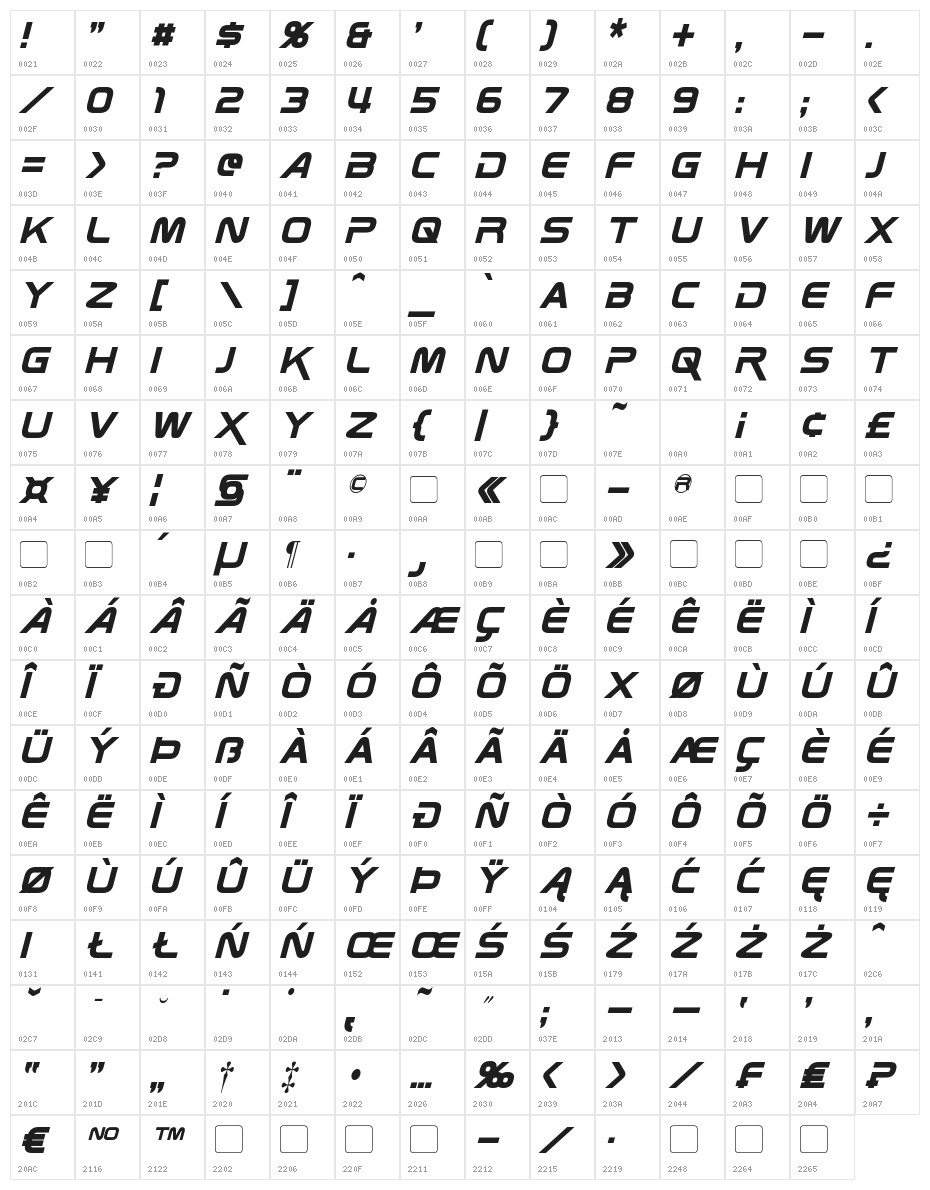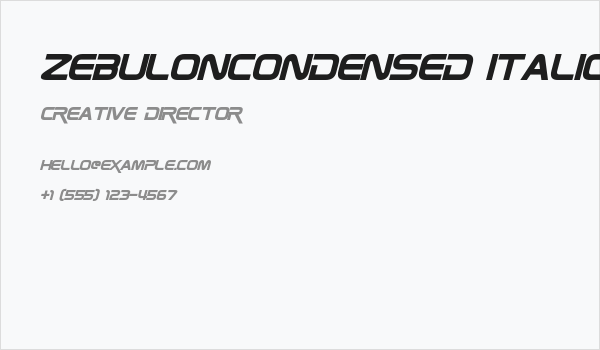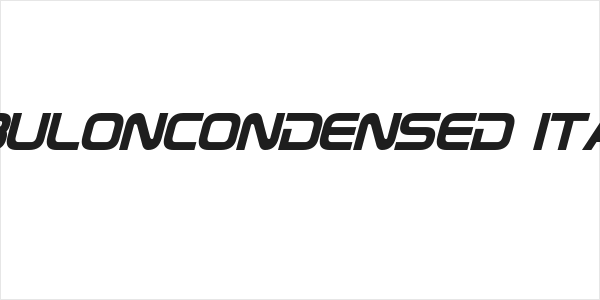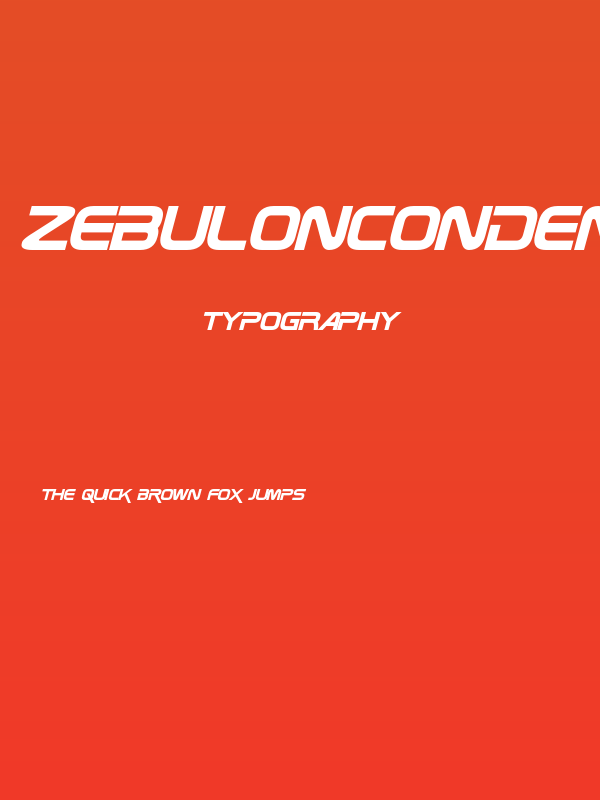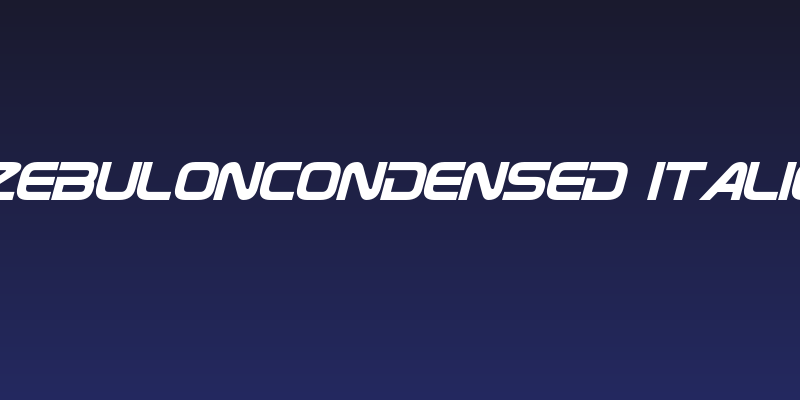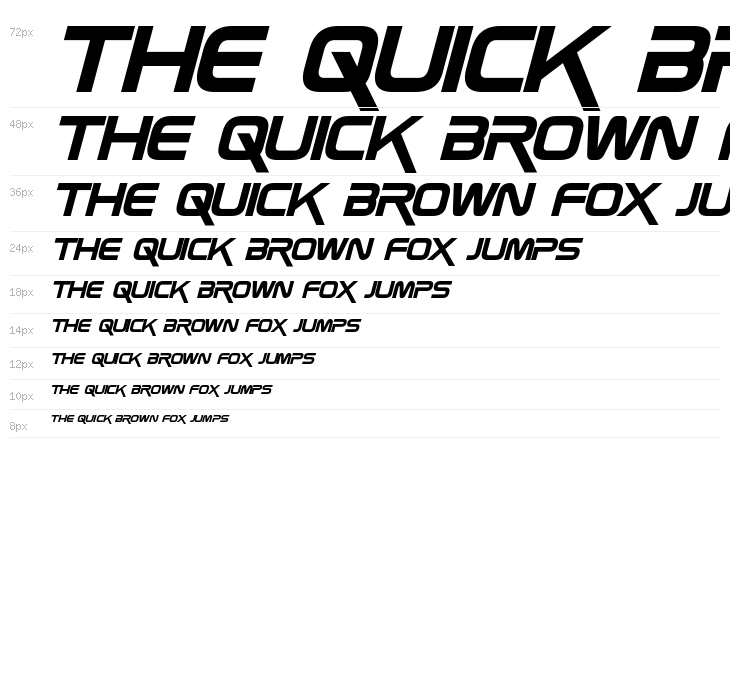
ZebulonCondensed Italic Font
ZebulonCondensed Italic Description
This font features a modern, sleek design with a condensed and italicized style. The characters are bold and have a forward-leaning slant, giving a sense of motion and dynamism. The strokes are thick and consistent, providing a strong visual impact. The angular cuts and sharp edges contribute to a futuristic and edgy appearance. The spacing between characters is tight, enhancing the compact and streamlined look. This font is ideal for projects that require a bold statement and a contemporary feel.
| Use Case | Logos, Headlines |
| Proposed Projects | Ideal for branding, sports team logos, automotive designs, and tech-related projects. |